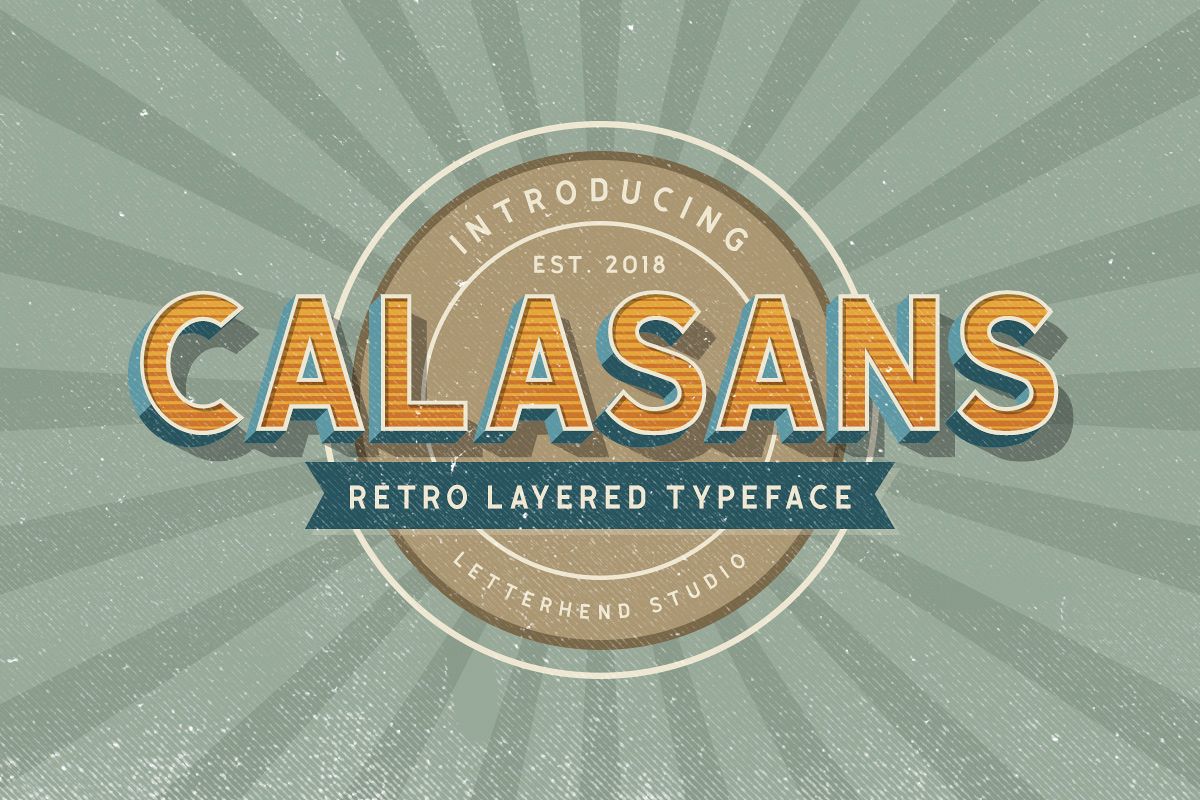
Calasans 7 Layered Font
Calasans is a sans serif font with 7 layered style. You can create 3D look without using any addons, only with fonts! This font is suitable for a vintage poster, 3d type, or retro Including number and punctuations, also support multi language. Create your own 3D type now!